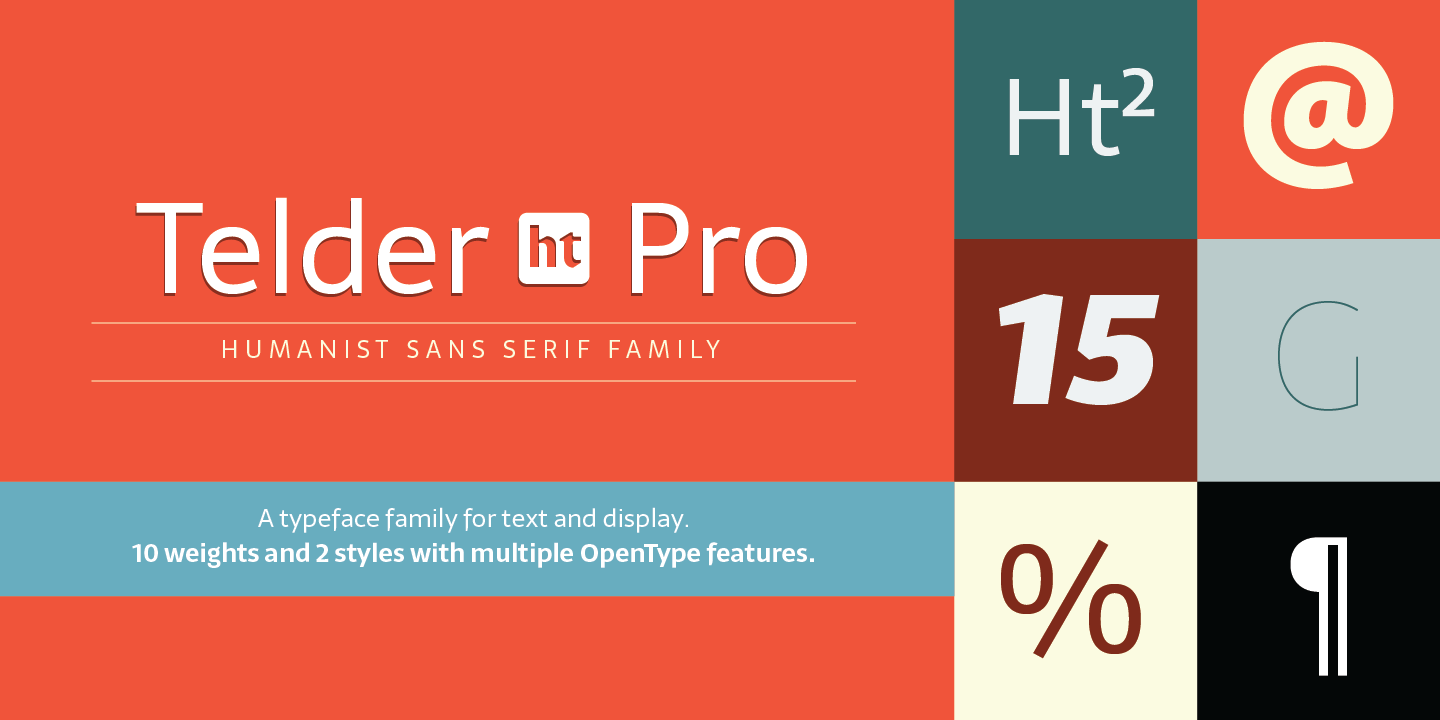
Telder HT Pro Font excels in corporate branding, professional presentations, business communications, modern logos, technical documentation, financial reports, enterprise software interfaces, and sophisticated commercial typography.
Telder HT Pro Font is exciting because it delivers exceptional technical precision and professional authority, featuring meticulously engineered letterforms that embody corporate excellence and modern business sophistication. This font delivers enterprise-grade quality with its refined character that commands respect in professional environments.
Telder HT Pro Font family includes thin, light, regular, medium, bold, black weights, plus italic variations and extended character sets, providing comprehensive professional solutions for diverse corporate and technical applications.
Elevate professional standards with Telder HT Pro Font Free Download. This exceptional typeface represents the pinnacle of corporate typography, featuring precisely engineered letterforms that deliver uncompromising quality and professional authority. Perfect for designers working with enterprise clients, this font delivers exceptional performance with refined character that meets the highest standards of business communication.
The expertly crafted characters showcase optimal proportions and technical refinement designed for maximum clarity and professional impact. Each letter demonstrates corporate excellence while maintaining superior functionality across all business applications, making it ideal for both large-scale presentations and detailed documentation.
Whether you're creating corporate identity systems, financial communications, or enterprise software interfaces, Telder HT Pro Font provides the professional authority your projects demand. This versatile typeface seamlessly adapts to various business contexts while maintaining its sophisticated character, making it an essential tool for designers who specialize in creating authoritative, trustworthy brand experiences that resonate with professional audiences and corporate decision-makers.